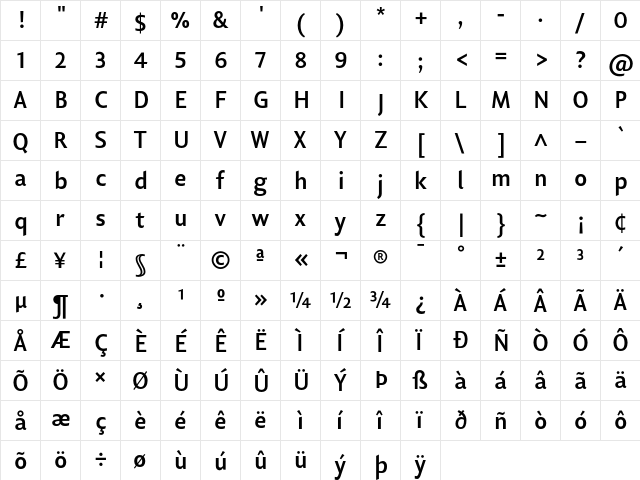
Lisboa Sans LF Bold
Design Context for Lisboa Sans LF Typeface
Lisboa Sans LF is a composed and adaptable typeface that performs quietly and consistently across a wide range of design contexts. Its bold stroke weight gives it real presence on the page.